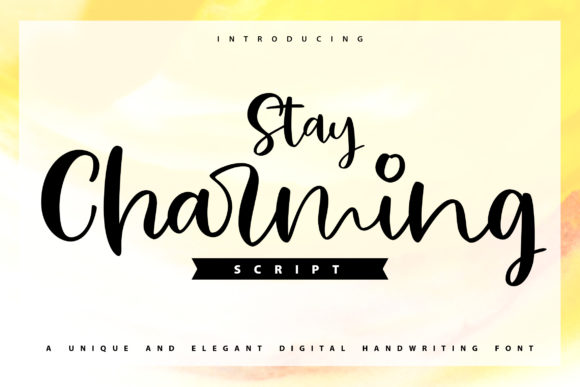
Dive into the enchanting realm of Stay Charming, a captivating script font family that embodies the essence of elegance and grace. Its flowing lines dance across the page, evoking a sense of timeless beauty and sophistication.
Crafted with meticulous care, Stay Charming features a nuanced baseline, ensuring a harmonious and visually appealing rhythm. Its smooth, uninterrupted lines glide effortlessly, creating a seamless and captivating reading experience.
Beyond its aesthetic allure, Stay Charming boasts a comprehensive collection of glyphs, providing you with an abundance of creative options. Express your originality with stunning alternates, adding a touch of playful charm to your designs.
Whether you're crafting heartfelt wedding invitations, expressing gratitude with personalized thank you cards, or capturing the essence of your brand with a sophisticated logo, Stay Charming is the perfect font to convey your message with undeniable style.
Indulge in the allure of Stay Charming and elevate your designs to new heights. Its versatility knows no bounds, making it the ideal choice for a myriad of projects that demand a touch of handwritten elegance.